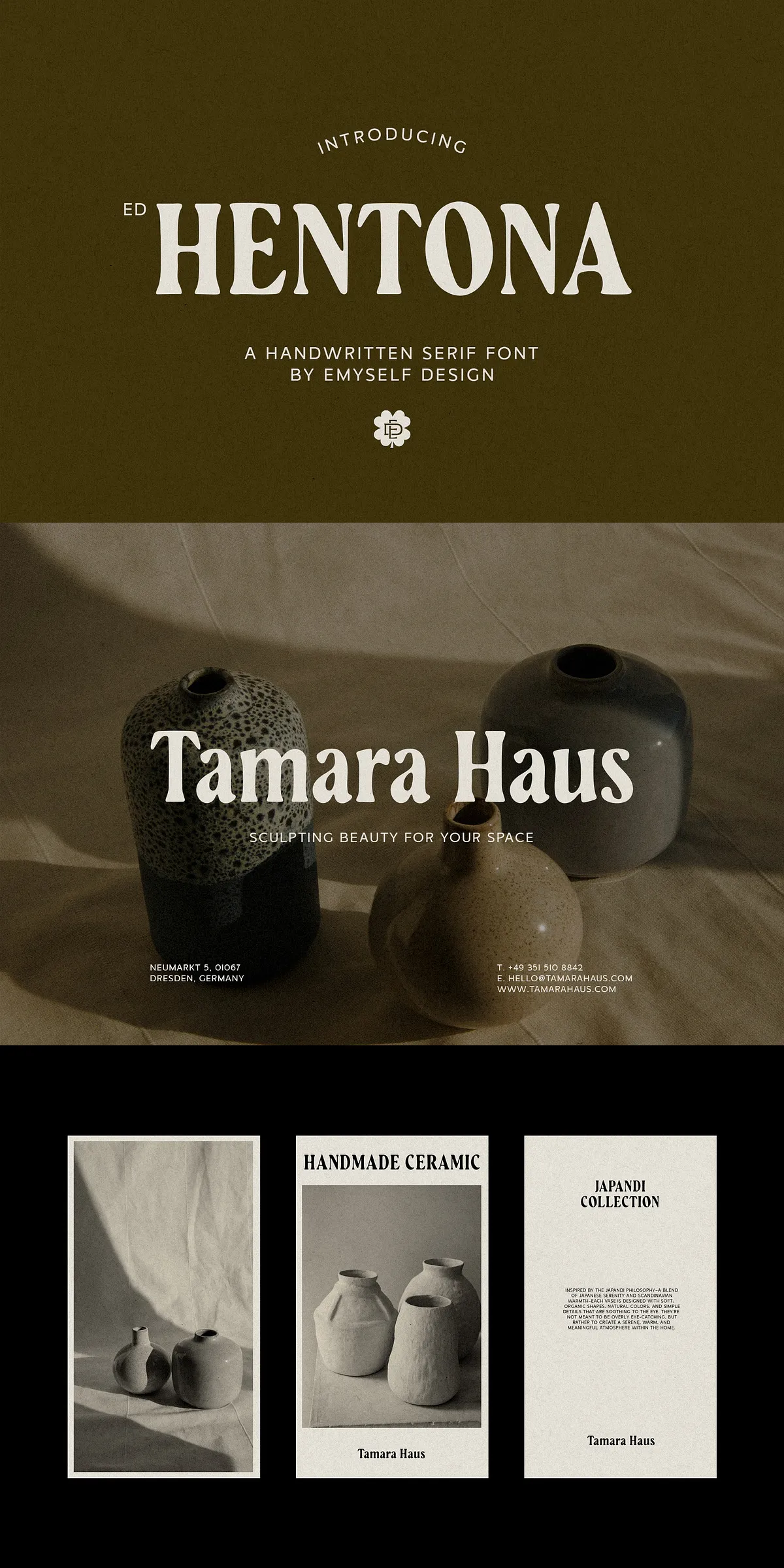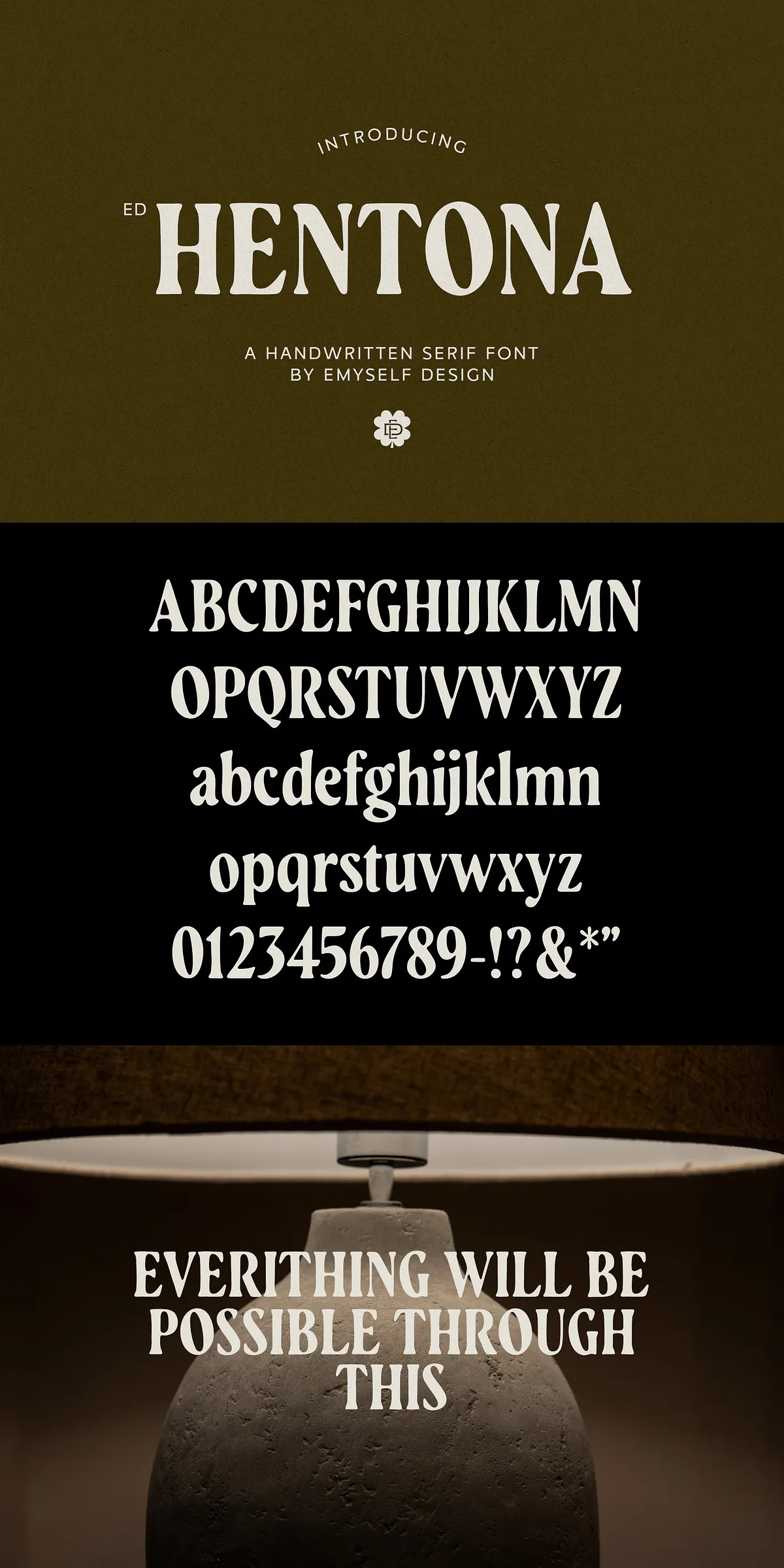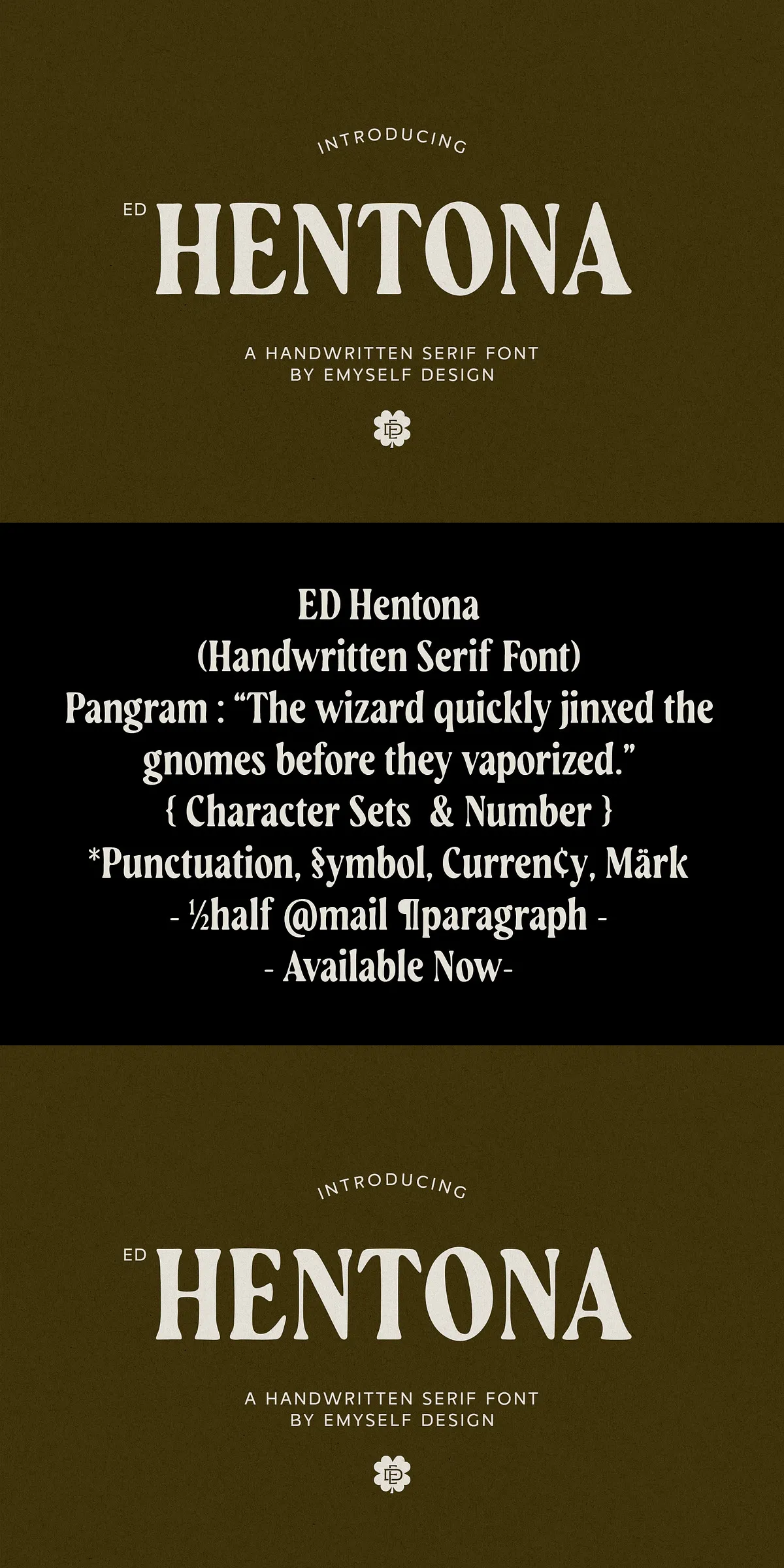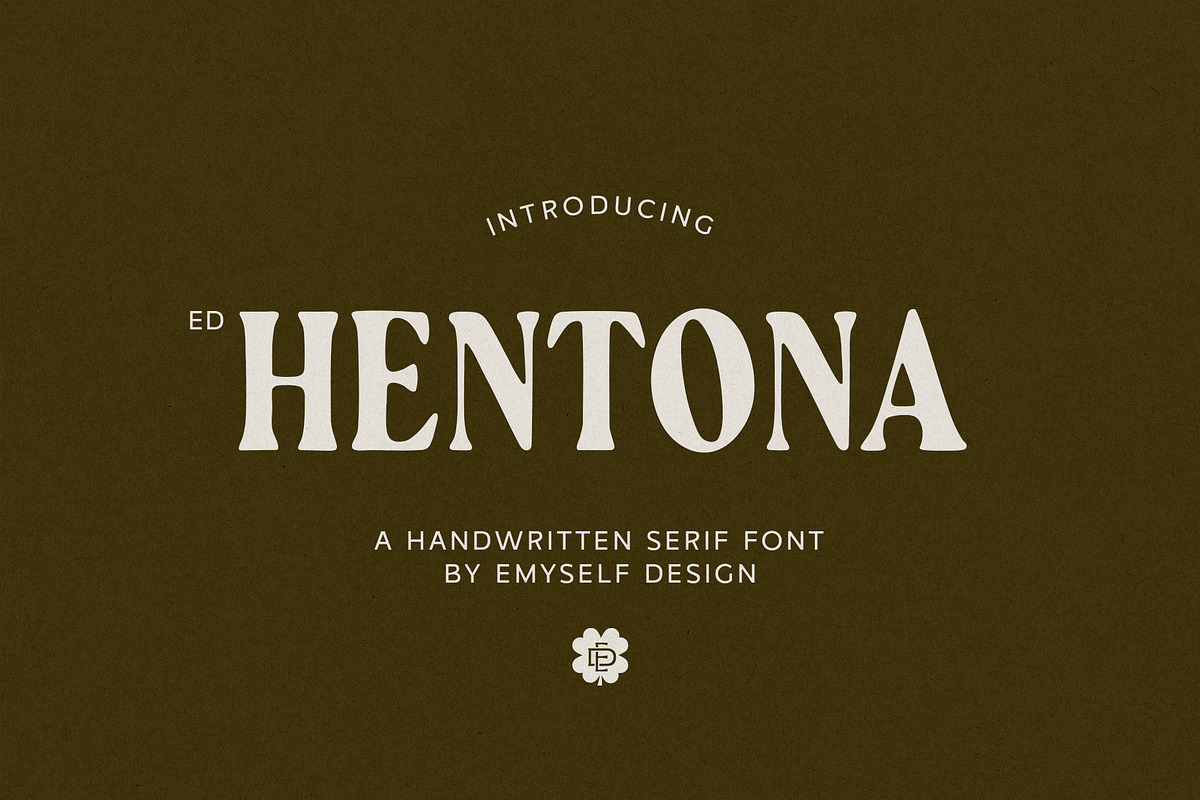
ED Hentona – Handcrafted Serif Font
ED Hentona celebrates the warmth and irregular beauty of hand-drawn letterforms. Each curve and stroke carries subtle, deliberate imperfections that communicate human touch and paper-era craft. The design actively rejects machine-perfect sterility and instead invites visual warmth, personality, and an organic voice that elevates brands, labels, editorial spreads, and social visuals.
Organic Handcrafted Letterforms That Strengthen Visual Identity
ED Hentona brings a timeless, handcrafted presence to any layout. The serif terminals and stroke contrasts feel crafted rather than manufactured, giving headlines and logos a distinctive, memorable silhouette. Designers will find the typeface effective for defining brand tone: it reads as approachable yet refined, weathered yet intentional. Use ED Hentona to anchor a visual identity that values authenticity, craft, and tactile storytelling.
Distinctive Design Features That Convey Handcrafted Character
• Tactile strokes: Rounded curves and slightly irregular serifs create a friendly, artisanal voice.
• Human imperfections: Intentional asymmetry and subtle ink-like texture add warmth and personality.
• Balanced proportions: Classical serif structure keeps letterforms readable while preserving expressive details.
• Versatile weights: Carefully tuned shapes support both compact headlines and larger display settings.
Practical Applications Where ED Hentona Excels In Use
ED Hentona performs strongly across a wide range of creative briefs. Deploy it for identity systems that need a handcrafted signature, or for packaging that benefits from an artisanal impression. Editorial layouts, coffee and food brands, wedding stationery, and fashion labels gain emotional resonance when ED Hentona defines the narrative. On social platforms, the typeface cuts through feeds with a human-first aesthetic that invites engagement.
Recommended Use Cases And Quick Examples For Designers
• Logo design — craft a memorable wordmark with expressive serifs and organic rhythm.
• Brand identity — build cohesive systems that pair the type with neutral sans accents for balance.
• Product packaging — communicate handcrafted quality and provenance through typography.
• Editorial layouts — headline treatments and pull-quotes benefit from the type’s personality.
• Wedding stationery — deliver timeless, intimate invitations with handcrafted charm.
• Social media graphics — create distinctive posts that feel personal and genuine.
• Total glyphs: 369 glyphs covering core Latin characters and common diacritics.
• Character support: Uppercase and lowercase letters, punctuation, and a selection of symbols.
Design Pairing Tips And Best Practices For Maximum Impact
Pair ED Hentona with a clean, neutral sans for body copy to preserve legibility while letting the serif operate as the personality anchor. When using on packaging or print, test ink density and paper choices to ensure the letterforms retain their handcrafted nuance without blotting. For digital headlines, adjust tracking and size to keep the organic details distinct at small sizes. Use ED Hentona sparingly in long paragraphs; reserve it primarily for display, headings, and brand marks where its handcrafted voice will resonate most strongly.